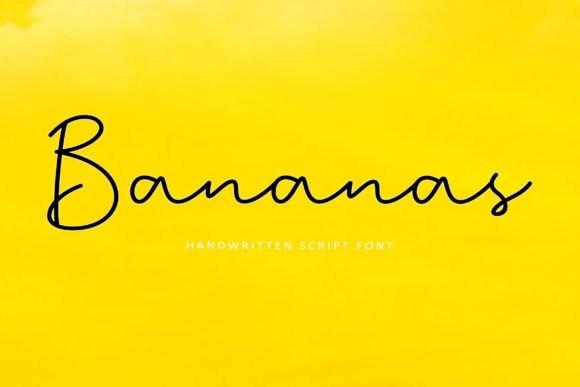
Introducing Bananas Font, your ultimate choice for creating captivating and eye-catching designs! Crafted by the talented team at FontCastle, this elegant script font is specifically designed for comic lettering, making it the best choice for all your creative projects.
With Bananas Font, prepare to be captivated by its completely different and timeless style. This font is not just another ordinary script font, but a true work of art that will elevate your designs to new heights. Its elegant and flowing curves add a touch of sophistication, while still maintaining a playful and fun vibe.
Whether you're a graphic designer, an illustrator, or simply someone looking to add a touch of creativity to your projects, Bananas Font is a must-have in your font collection. Its versatility allows it to be used in a wide range of designs, from logos and branding to posters and invitations. Let your imagination run wild and watch as Bananas Font brings your ideas to life with its unique charm.
But what truly sets Bananas Font apart is its ability to evoke emotions and tell stories. With each stroke, this font creates a sense of excitement, joy, and adventure. It transports your audience to a world of comic book magic, where superheroes come to life and tales are woven with every letter.